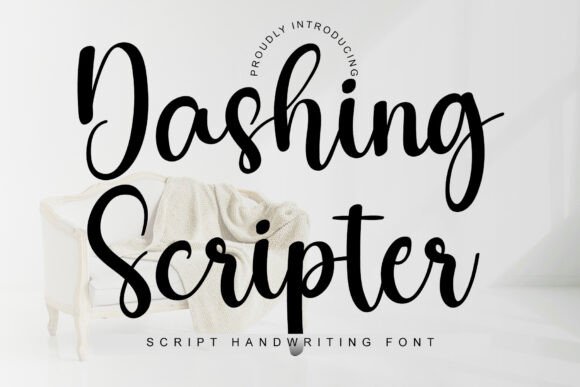
Dashing Scripter Font: Add a Touch of Holiday Magic to Your Christmas Cards and Decorations
The holiday season is upon us, and what better way to spread the joy and cheer than with a festive and playful typeface that captures the essence of Christmas? Look no further than the Dashing Scripter Font, a whimsical font designed to add a touch of holiday magic to your Christmas cards, decorations, and more.
What is Dashing Scripter Font?
Dashing Scripter Font is a unique and enchanting typeface that is perfect for the holiday season. Adorned with swashes and ligatures, this font is sure to add a touch of festive flair to any project. Whether you’re creating Christmas cards, decorations, or holiday-themed marketing materials, Dashing Scripter Font is the perfect choice.
Key Features of Dashing Scripter Font
So, what makes Dashing Scripter Font so special? Here are just a few of its key features:
- Festive and Playful Design: Dashing Scripter Font is designed to capture the whimsy and playfulness of the holiday season. Its festive design is sure to put a smile on anyone’s face.
- Enchanting Swashes: The font features a range of enchanting swashes that add a touch of elegance and sophistication to any project.
- Perfect for Christmas Cards and Decorations: Whether you’re creating Christmas cards, decorations, or holiday-themed marketing materials, Dashing Scripter Font is the perfect choice.
How to Use Dashing Scripter Font
- Use it for Headings and Titles: Dashing Scripter Font is perfect for headings and titles. Its festive design and swashes make it a great choice for adding a touch of holiday magic to any project.
- Experiment with Different Sizes and Colors: Don’t be afraid to experiment with different sizes and colors. Dashing Scripter Font looks great in a range of sizes and colors, from bold and bright to subtle and elegant.
- Pair it with Other Fonts: Dashing Scripter Font pairs well with a range of other fonts. Try pairing it with a simple sans serif font for a bold and modern look.
Benefits of Using Dashing Scripter Font
So, why should you choose Dashing Scripter Font for your holiday-themed projects? Here are just a few benefits:
- Adds a Touch of Holiday Magic: Dashing Scripter Font is designed to capture the essence of the holiday season. Its festive design and swashes add a touch of holiday magic to any project.
- Perfect for Marketing Materials: If you’re creating holiday-themed marketing materials, Dashing Scripter Font is a great choice. Its festive design and swashes are sure to grab attention and add a touch of professionalism to any project.
Tips and Tricks for Getting the Most Out of Dashing Scripter Font
Here are a few tips and tricks for getting the most out of Dashing Scripter Font:
- Use it for Social Media Graphics: Dashing Scripter Font is perfect for social media graphics. Its festive design and swashes are sure to grab attention and add a touch of holiday magic to any social media post.
- Create a Holiday-themed Blog Post: If you’re creating a holiday-themed blog post, Dashing Scripter Font is a great choice. Its festive design and swashes add a touch of holiday magic to any blog post.
- Use it for Packaging and Labels: Dashing Scripter Font is perfect for packaging and labels. Its festive design and swashes add a touch of holiday magic to any product packaging or label.
In conclusion, Dashing Scripter Font is a festive and playful typeface that is perfect for adding a touch of holiday magic to your Christmas cards, decorations, and more. Its enchanting swashes and PUA encoding make it easy to use and add a touch of elegance and sophistication to any project. Whether you’re creating holiday-themed marketing materials, social media graphics, or packaging and labels, Dashing Scripter Font is the perfect choice.